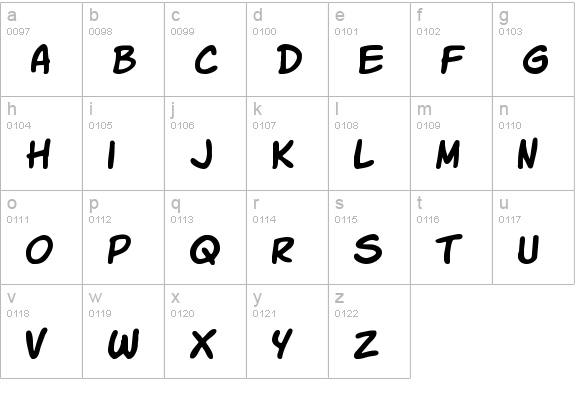
Komika Slick is a modern and stylish font that exudes sophistication and elegance. With its sleek lines and contemporary design, this typeface is perfect for a wide range of design projects, from branding to packaging to web design. The unique combination of sharp angles and smooth curves gives Komika Slick a distinctive look that is sure to make your text stand out. One of the best things about Komika Slick is that it is completely free to download. You can easily access this stunning font at FontsMarket.com, where you can download it and start using it in your projects right away. Whether you're a professional designer looking for a fresh new font to add to your collection or a hobbyist looking to spice up your personal projects, Komika Slick is the perfect choice. Download it today and see for yourself how this font can elevate your design work to the next level.